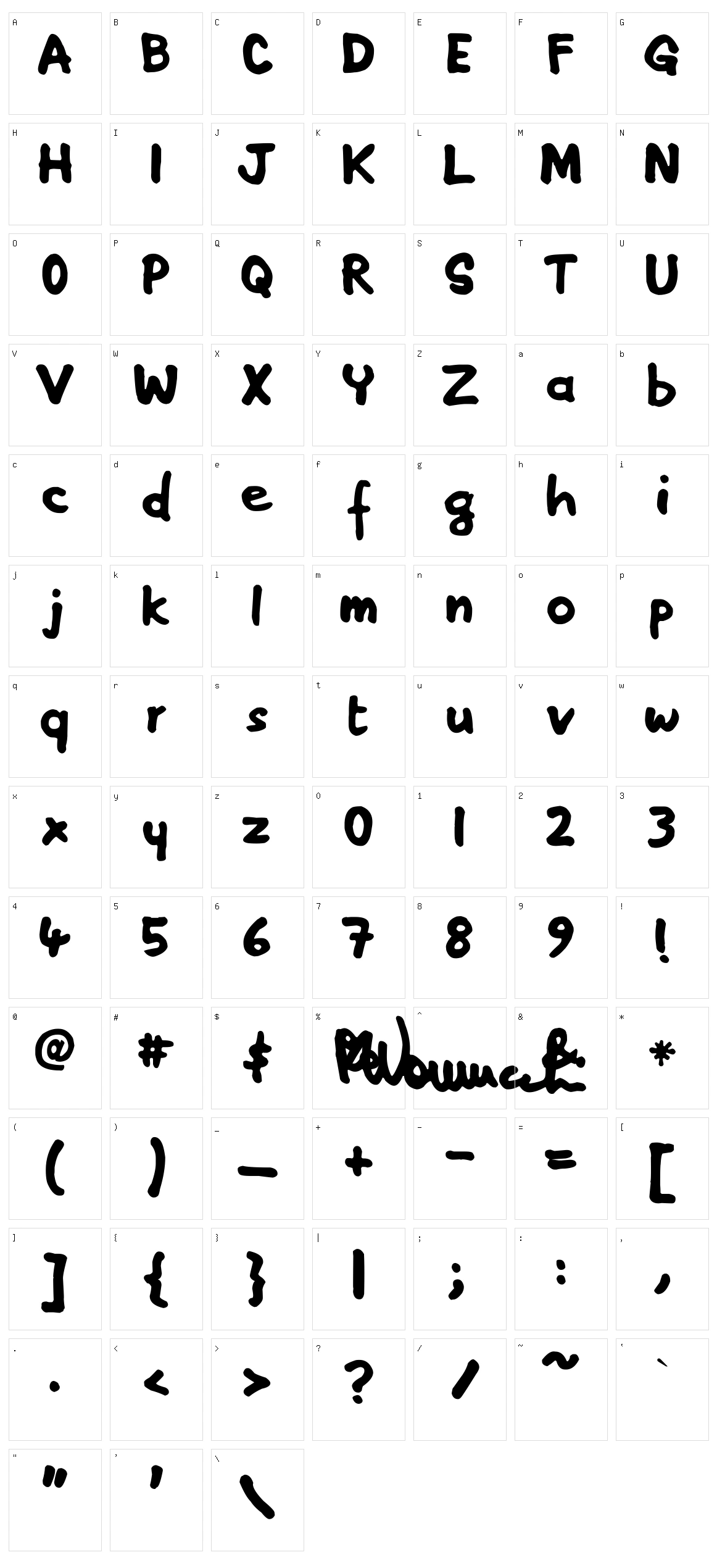
The free font Pennarelo is carefully designed by Mkt, showcasing a thoughtful balance of creativity and usability and falls under the Script font style. When you download the ZIP file, it contains only 16.86 KB of font files, making it lightweight and quick to download. Please review the license details below to understand permitted usage and distribution rights. If license information is not available, we recommend using this font for personal projects only or contacting the author directly for commercial usage permissions.